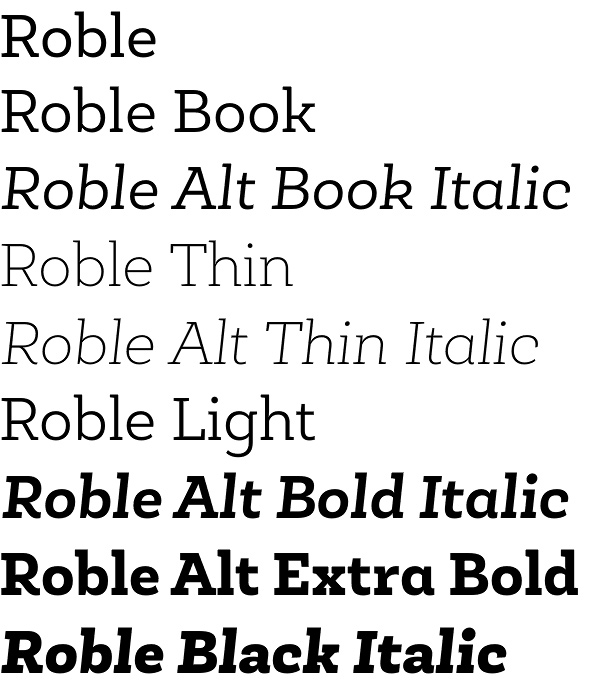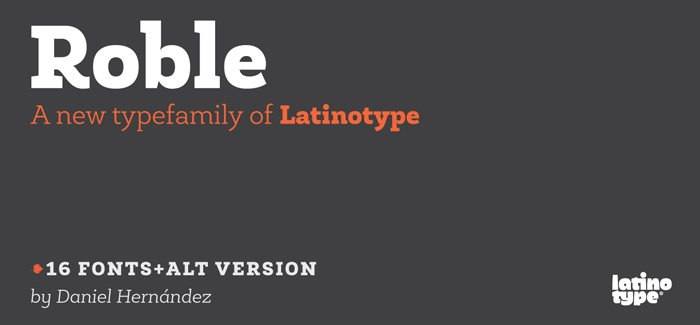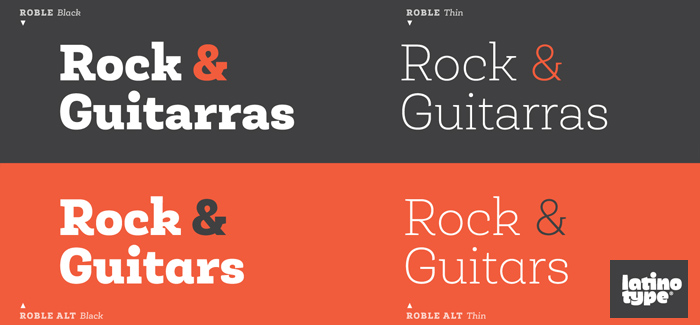
Roble font
Roble font by Latinotype – a very sophisticated slab-serif super-family designed in 8 weights including matching alternates and italics as individual fonts for every weight. A beautiful mix between existing Andes and Sanchez fonts, Roble is definitely one of the best typefaces dedicated to editorial design with enhanced readability and countless number of successful combinations between different weights and style improving and personalizing your design. Starting from Thin to Black, Roble font is developed with opentype multilingual supports, ligatures and many other features making it very user friendly – a proper solution both for screen or print graphics. Use it for editorial design, stationary, business correspondence, posters and catchy headlines.
Designers: Daniel Hernández
Publisher: Latinotype